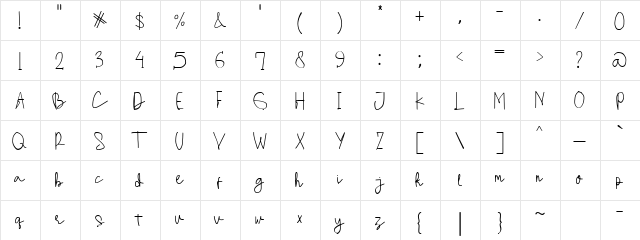
Lavindir Regular
| Designer | Afif Hidayat Alhabsi |
Design Context for Lavindir Typeface
Lavindir is a composed and adaptable typeface that performs quietly and consistently across a wide range of design contexts.